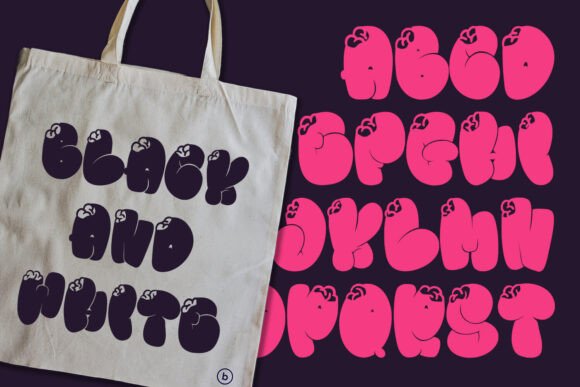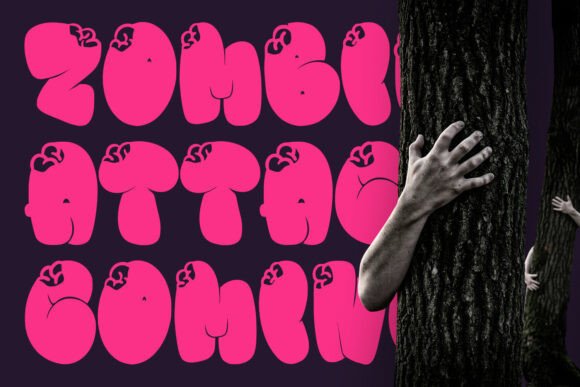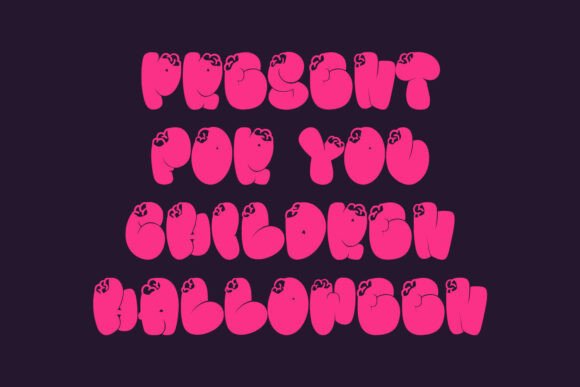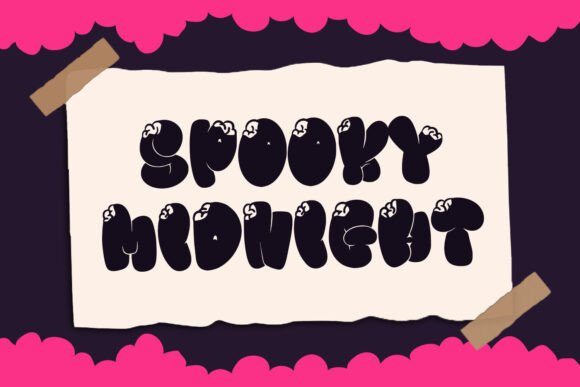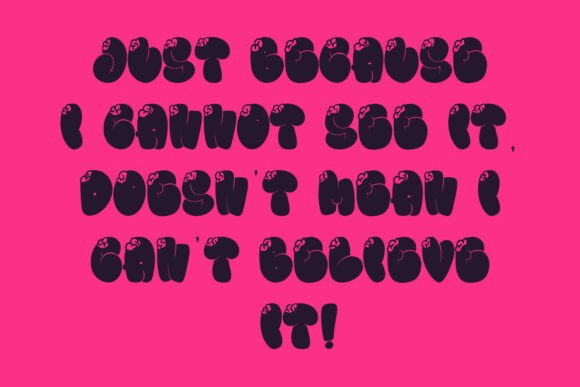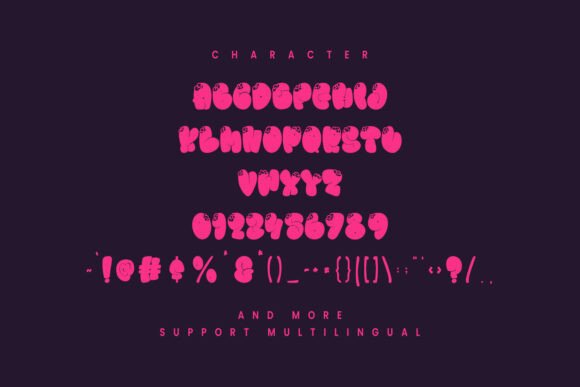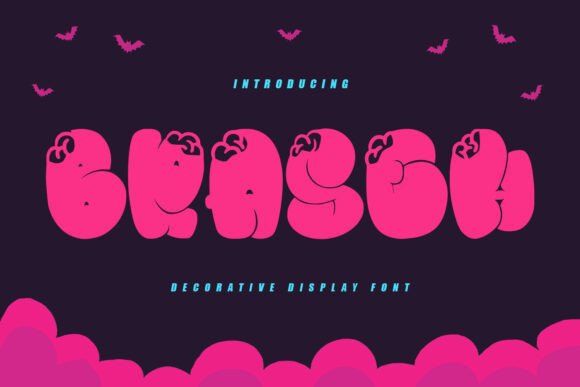
Introducing Braseh Font: Elevate Your Designs with a Unique Decorative Display Font
In the world of typography, a font can make or break a design. If you’re a designer, craftsperson, or simply someone who loves to dabble in creative projects, you’re likely always on the lookout for that perfect typeface that will make your work stand out. Enter Braseh Font, a decorative display font that is sure to turn heads with its unique and eye-catching style.
What is Braseh Font?
Braseh is a carefully crafted decorative display font designed to add a touch of elegance and fun to any project. Its artistic curves and intricate details give it a creative and stylish look that is perfect for making bold headlines, posters, logos, or any design that needs to stand out from the crowd.
Key Features of Braseh Font
- Unique and Eye-Catching Style: Braseh boasts a distinctive style that is sure to grab attention. Its unique curves and artistic details make it a standout in the world of typography.
- Perfect for Bold Headlines and Posters: The font’s decorative nature makes it ideal for creating bold headlines and posters that demand attention.
- Ideal for Logos and Branding: With its stylish and elegant look, Braseh is perfect for crafting logos and branding materials that need to make a lasting impression.
- Versatile: Whether you’re working on a fun and playful project or something more elegant and sophisticated, Braseh’s versatility ensures it can adapt to your design needs.
Why Choose Braseh Font?
Choosing the right font for your project can be overwhelming, given the countless options available. However, Braseh Font stands out for several reasons:
- Creativity and Originality: In a sea of generic fonts, Braseh offers a breath of fresh air with its original and creative design.
- Ease of Use: Despite its intricate details, Braseh is easy to use and works seamlessly across various design platforms.
- Customization: The font is highly customizable, allowing you to adjust it to fit the specific needs of your project.
How to Use Braseh Font in Your Projects
Integrating Braseh Font into your projects is straightforward. Here are a few tips to get you started:
- Pair it with Simpler Fonts: For optimal readability, consider pairing Braseh with simpler fonts for body text.
- Experiment with Sizes and Colors: Don’t be afraid to experiment with different sizes and colors to maximize the impact of Braseh in your designs.
- Use it Sparingly: Given its decorative nature, it’s best to use Braseh sparingly to highlight key elements in your design.
Who Can Benefit from Braseh Font?
Braseh Font is a versatile tool that can benefit a wide range of professionals and hobbyists, including:
- Graphic Designers: Looking for a unique font to make their designs pop.
- Marketers: Needing eye-catching typography for campaigns and branding.
- Crafters and DIY Enthusiasts: Seeking stylish fonts for their handmade projects and crafts.
- Web Designers: Aiming to add a personal touch to their website typography.
Braseh Font is more than just a decorative display font; it’s a tool for creativity and self-expression. Its unique and eye-catching style, combined with its versatility and ease of use, makes it an excellent choice for anyone looking to elevate their designs. Whether you’re a professional designer or a crafty hobbyist, Braseh is sure to inspire and help you create stunning visual pieces that stand out.
So why settle for ordinary when you can make your designs extraordinary with Braseh Font? Dive into the world of creative typography and let Braseh take your projects to the next level.